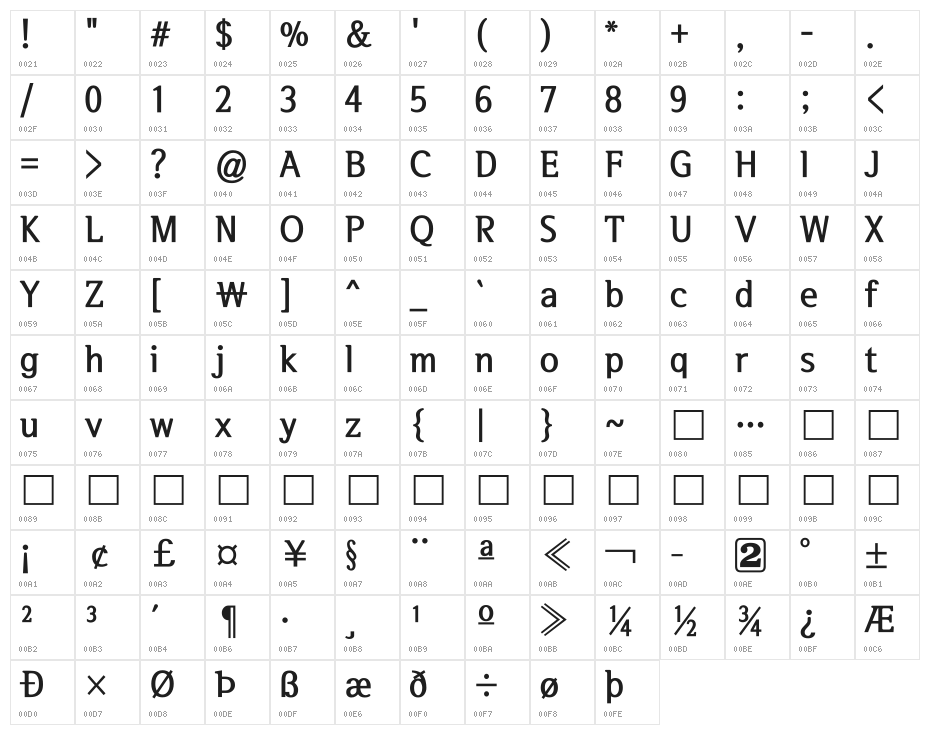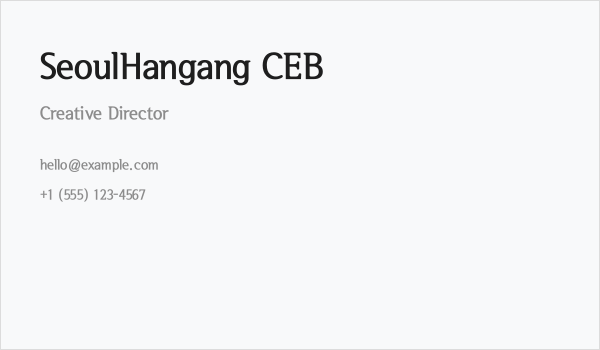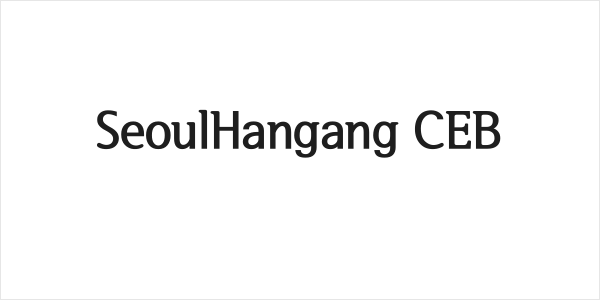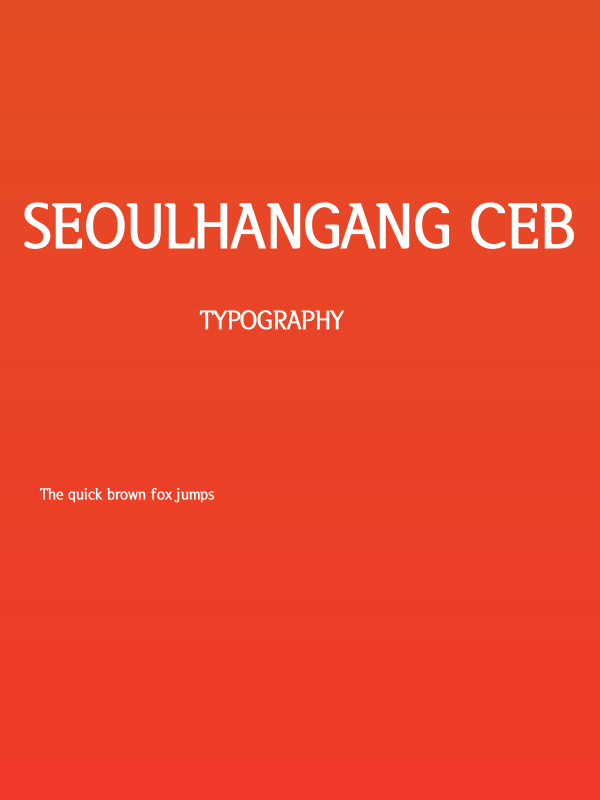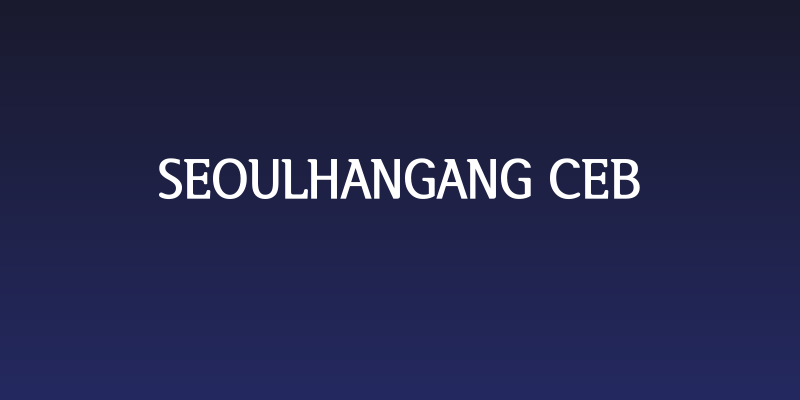
SeoulHangang CEB Font
SeoulHangang CEB Description
This font features a clean and modern design with a sans-serif style, offering a balanced and versatile appearance. The characters are well-proportioned, with a consistent stroke width that provides a harmonious look. The uppercase letters are bold and prominent, while the lowercase letters maintain a friendly and approachable feel. The numerals are clear and easily distinguishable, making them suitable for various applications. Special characters are included, enhancing the font's utility for diverse projects. Overall, this font is ideal for both digital and print media, offering readability and aesthetic appeal.